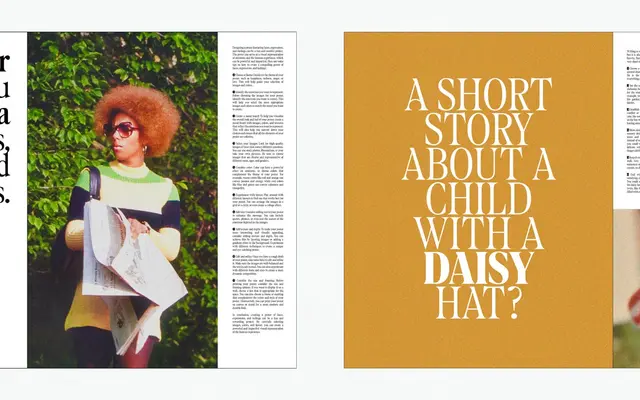
At King
Arillatype · Pedro Arilla · 2023
At King specimen from Arillatype
A modern old-style serif by Pedro Arilla with sharp serifs, chubby terminals and a countercultural character drawn from 1970s phototypesetting display types.
Seven styles running from Light to Poster, with a variable font spanning the full weight axis, make this a versatile family for both text and large-scale use. Gothic alternate letterforms add a distinctly haunting quality, and the character set extends to over 100 languages via Latin Extended. Part of the Royal Collection alongside At Queen, it includes circled and solid numeral sets alongside old-style figures and ordinal indicators.
Described as a modern old-style face with sharp serifs and chubby terminals, referencing phototypesetting display fonts of the 1970s; sits firmly in the old-style serif tradition with a contemporary countercultural edge.